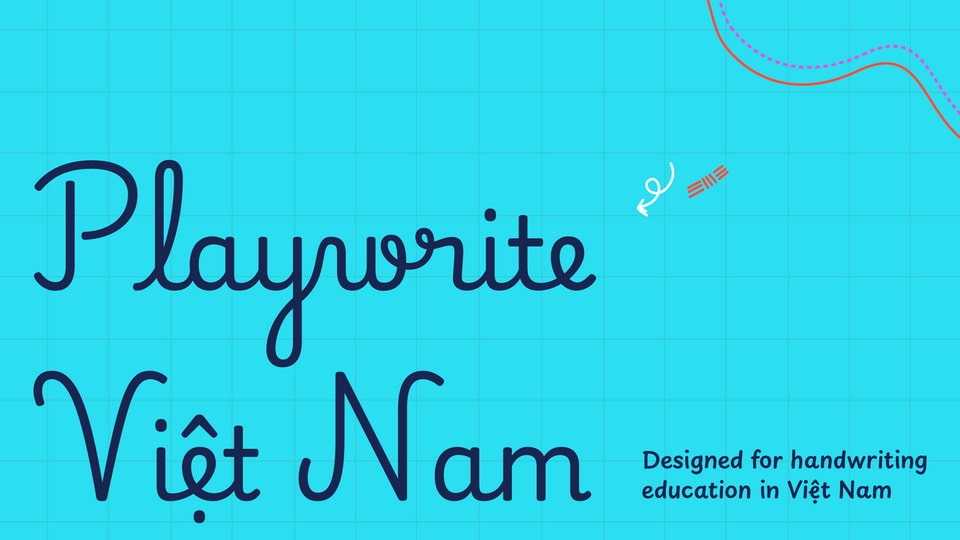
Download Playwrite Việt Nam font, a typeface that allows the creation of primary school cursive fonts. The model follows the structure and proportions of the upright, monolinear version of the Vietnamese official cursive script.
Designer: TypeTogether